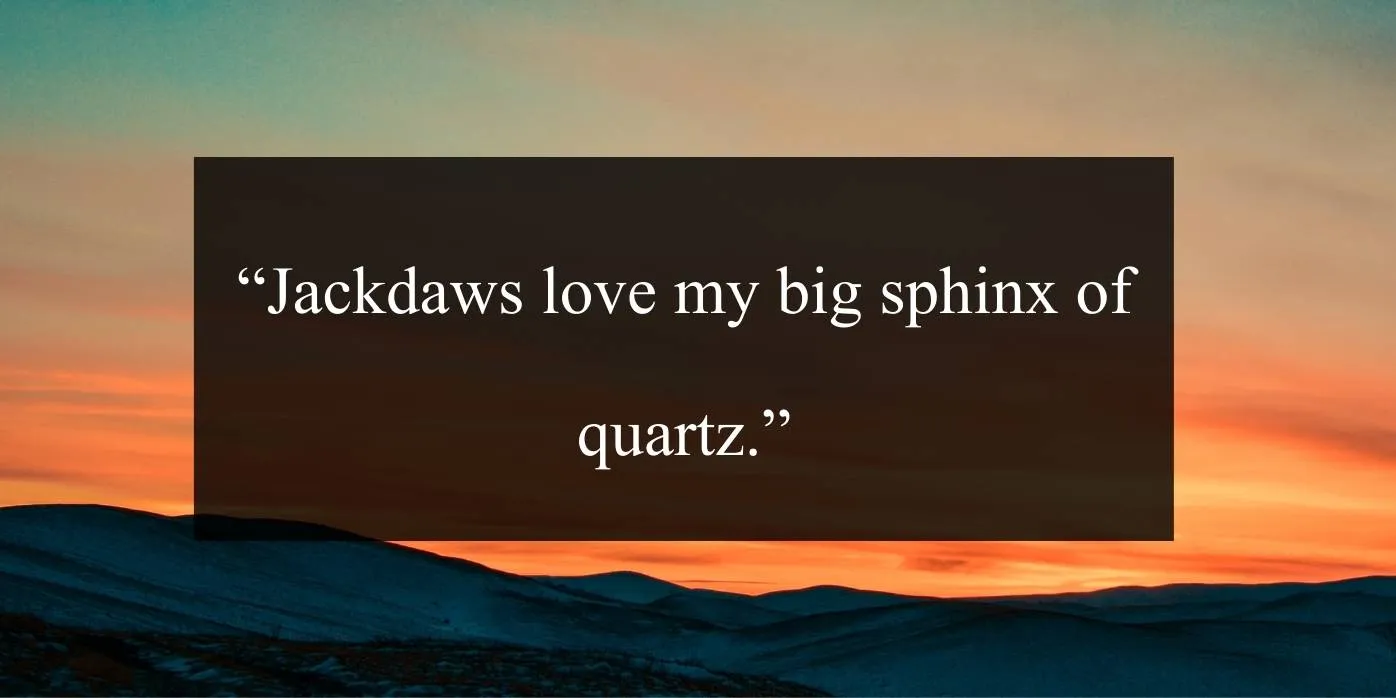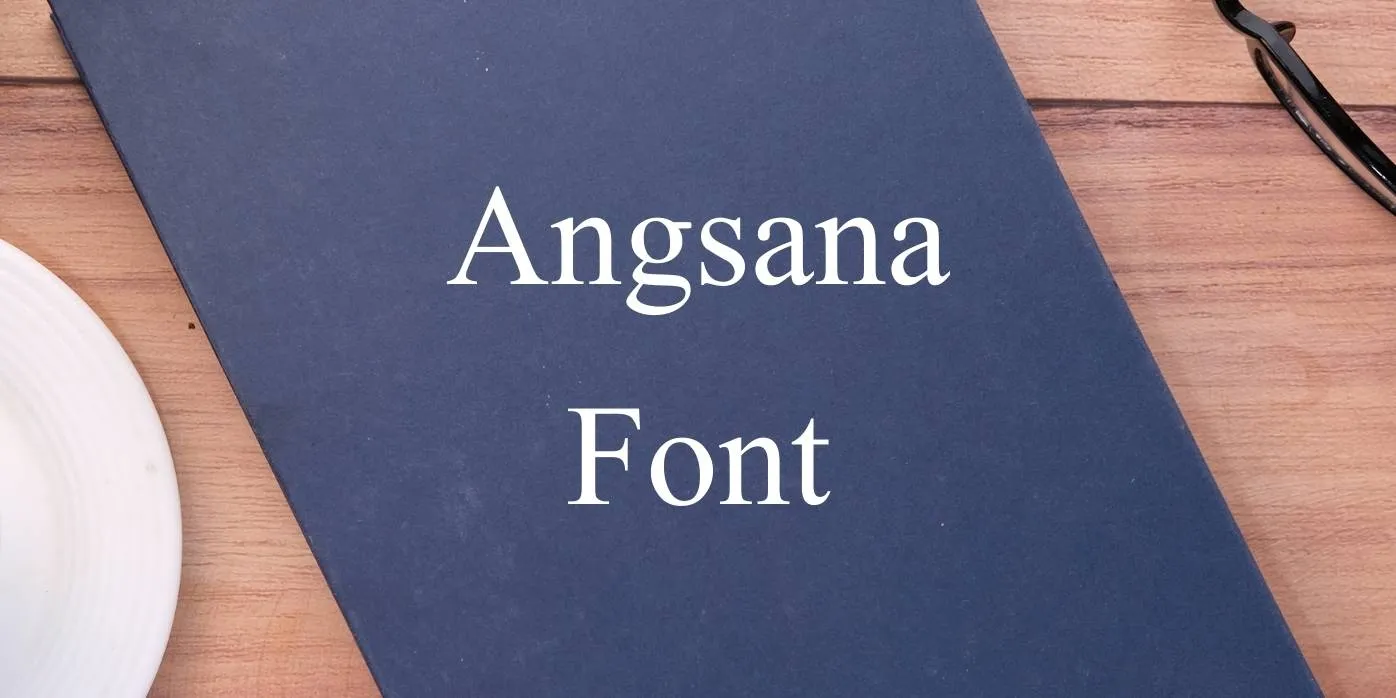
Angsana Font
Today, we are consulting on a new tremendous typeface that was known by the name Angsana Font. The main developer of this font family was Unity progress. This classy font family is available in 5 outclass and unique weights. Also, it is available in more than 100 special characters.
It belongs to the serif font family. Some of its famous characters are icons, numerals, symbols, and a lot more. This tremendous typeface is available in both OTF and TTF file formats. It consists of different advanced features.
It has neat and clean textures. Its Bold styles make it perfect for various designs. This font family is best for use on Mac. It is best for Windows 10.